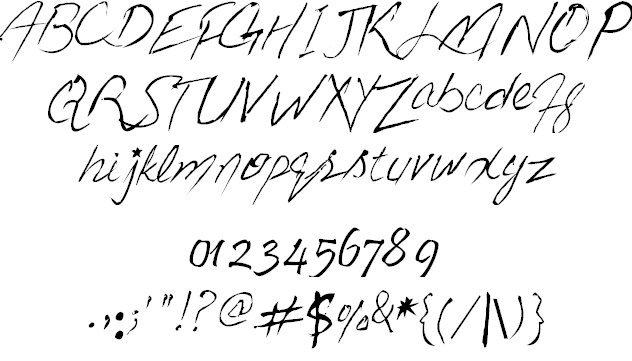
Free Handwriting Mehmood Font
Introducing you to the absolutely beautiful free handwriting mehmood font. Download this typeface from the original source of Font Space. Showcase your designs like a graphic design pro by adding a new touch with this fancy font.